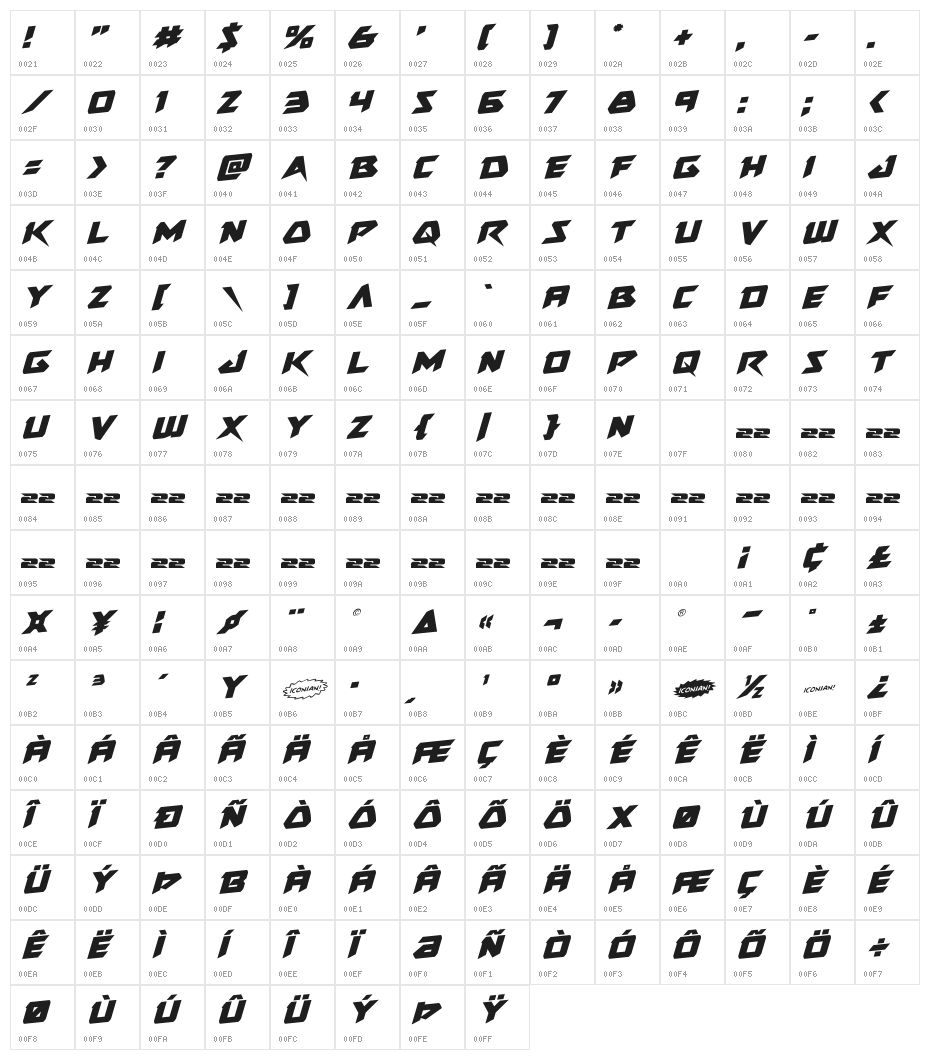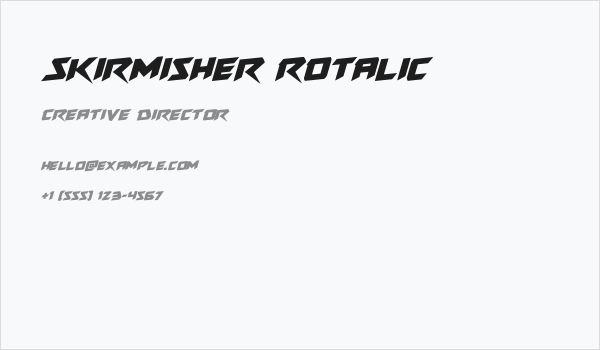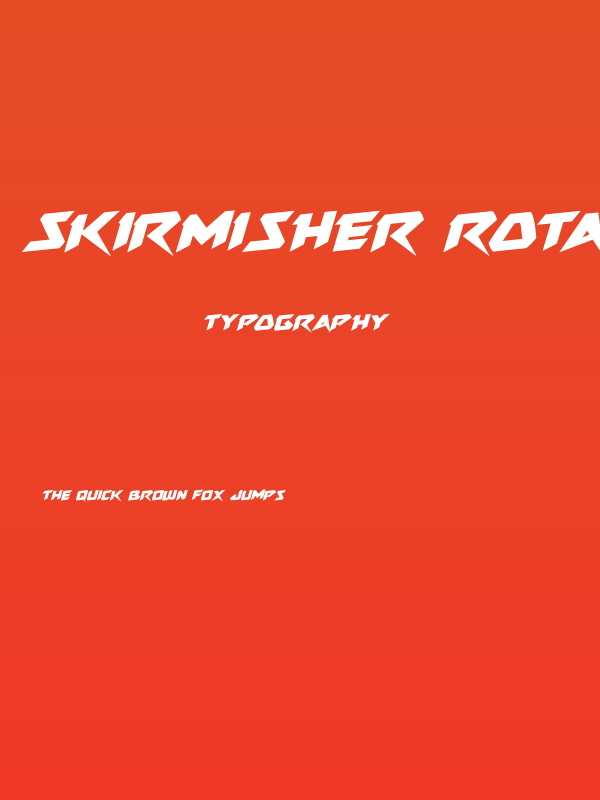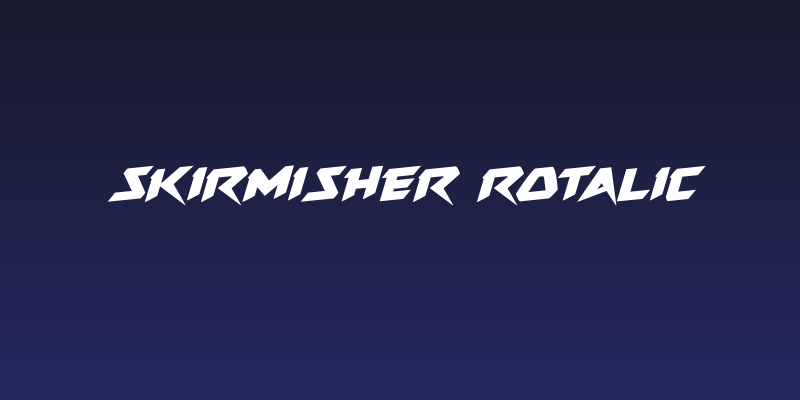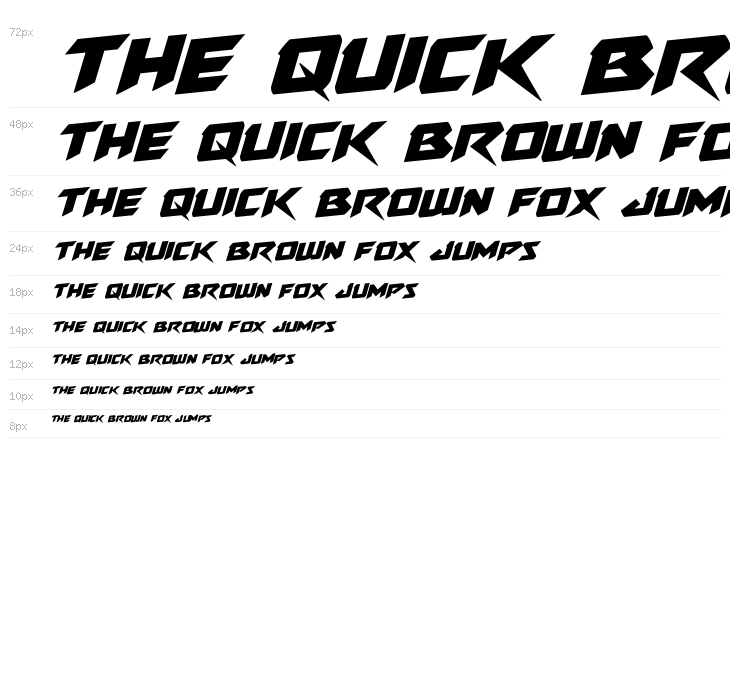
Skirmisher Rotalic Font
Skirmisher Rotalic Description
This font features a bold and dynamic design with sharp, angular edges and a forward-leaning slant, giving it a sense of motion and energy. The characters are heavily stylized, with thick strokes and a consistent slant that adds to its aggressive and modern appearance. The uppercase and lowercase letters maintain a uniform style, while the numbers and special characters complement the overall aesthetic. This font is ideal for projects that require a strong, impactful visual presence.
| Proposed Projects | Perfect for sports branding, action movie posters, video game titles, and dynamic logos. |